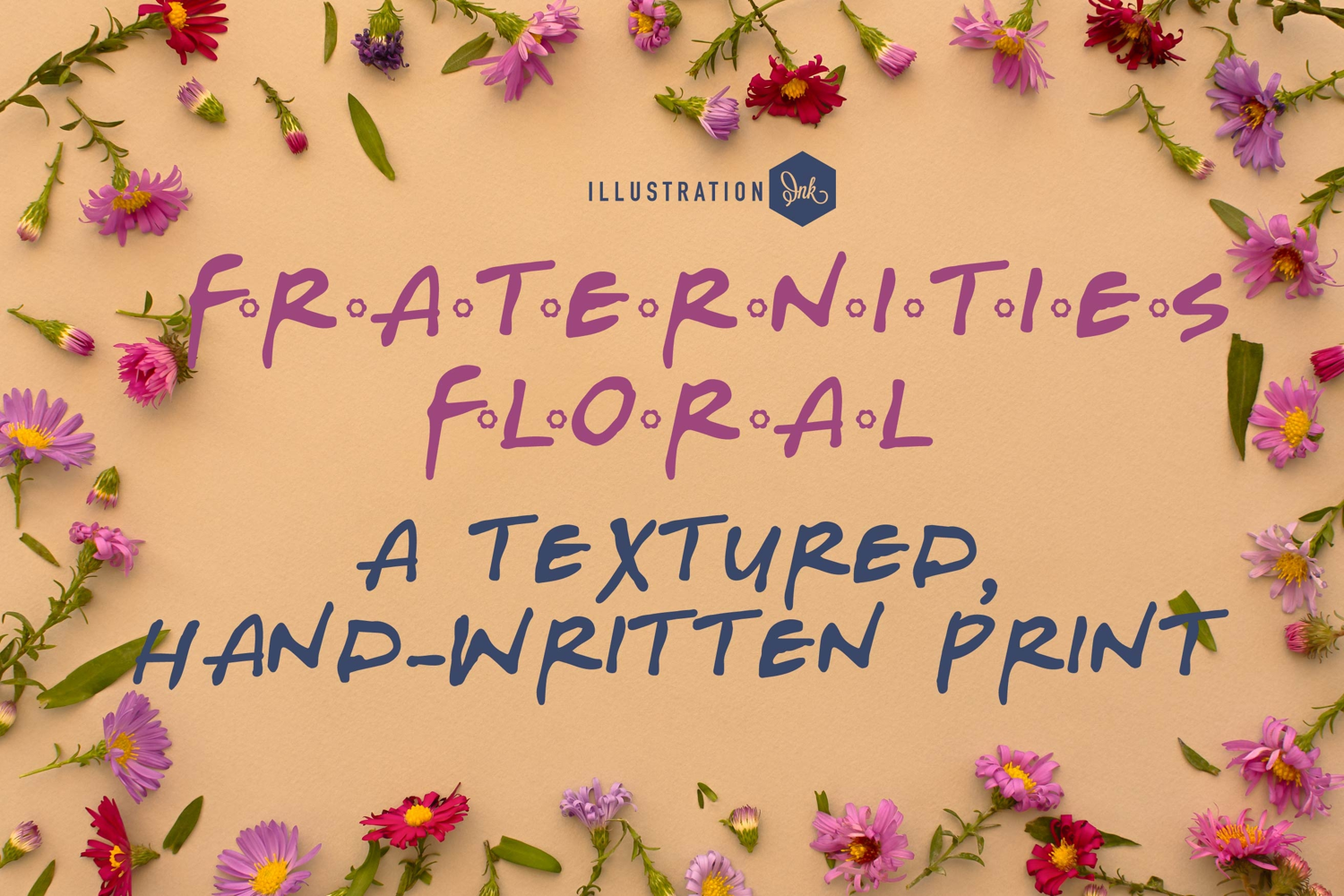
Fraternities Floral Font Family
This hand-crafted font is a whimsical, hand-crafted font sporting florals with six variations. In this font the uppercase only has a flower dot to the right of each letter. Type "FRATERNITIEs" to have your sample turn out like the example
• The letters are not perfectly uniform in size or shape.
• There may be slight variations in the spacing between letters and words.
• The font may have a "wiggly" or "squiggly" appearance.
• The font may be difficult to read at small sizes.